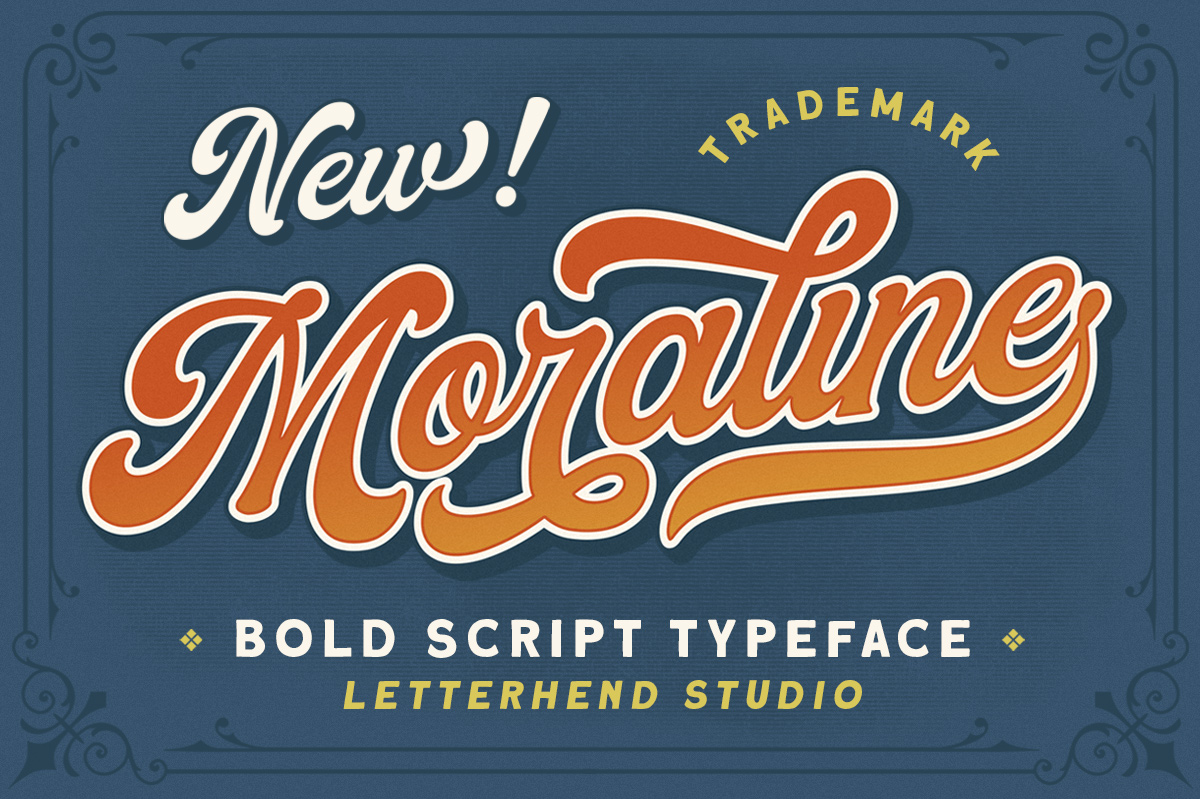
Moraline Script Font
Moraline Script Font brings excitement to design projects with its noble, flowing character and ethical elegance that embodies the essence of moral guidance and principled living. The font features graceful script letterforms with dignified flourishes that evoke feelings of integrity, wisdom, and moral clarity. Its virtuous sophistication and inspiring presence make it an exceptional choice for brands that want to communicate ethical leadership, moral guidance, and principled values in their meaningful communications.
Moraline Script Font family includes various virtuous styles: Light, Regular, Medium, Bold, Ornamental, Condensed, and Wisdom versions. Each variant maintains the font's distinctive ethical character while providing designers with complete flexibility for creating principled branding systems. The family also features wisdom-inspired ornaments, virtue-themed decorative elements, moral ligatures, and ethical symbols that enhance the overall uplifting aesthetic.
The font's ethical excellence includes carefully crafted flowing connections that promote moral harmony, dignified spacing that creates visual integrity, and inspiring variations that maintain principled consistency while ensuring professional credibility. Whether you're designing for educational institutions, spiritual organizations, or ethical consulting services, this font delivers the virtuous touch that inspires audiences seeking authentic moral guidance and principled leadership.